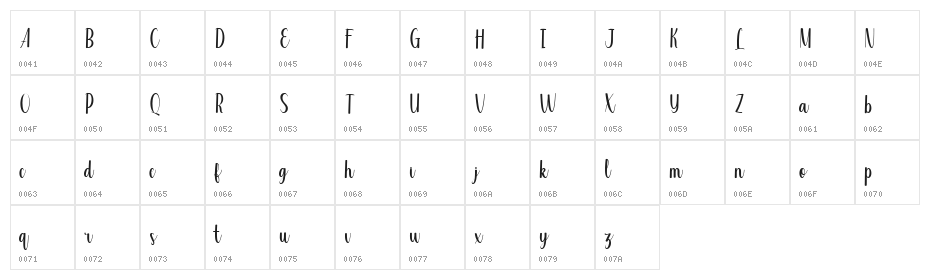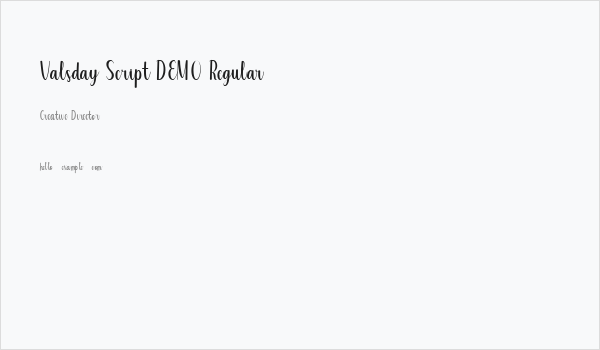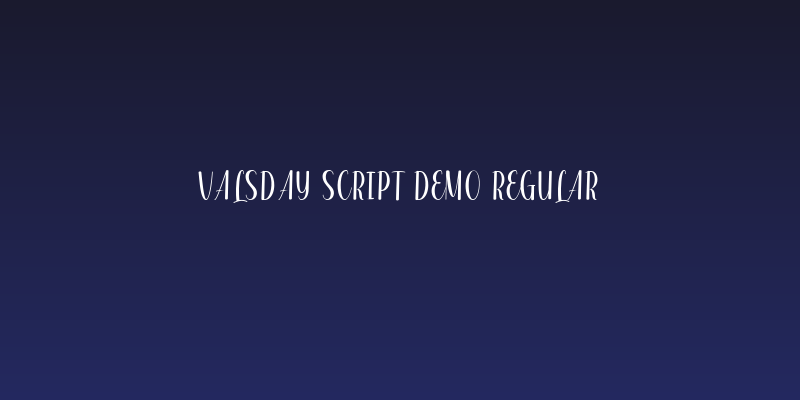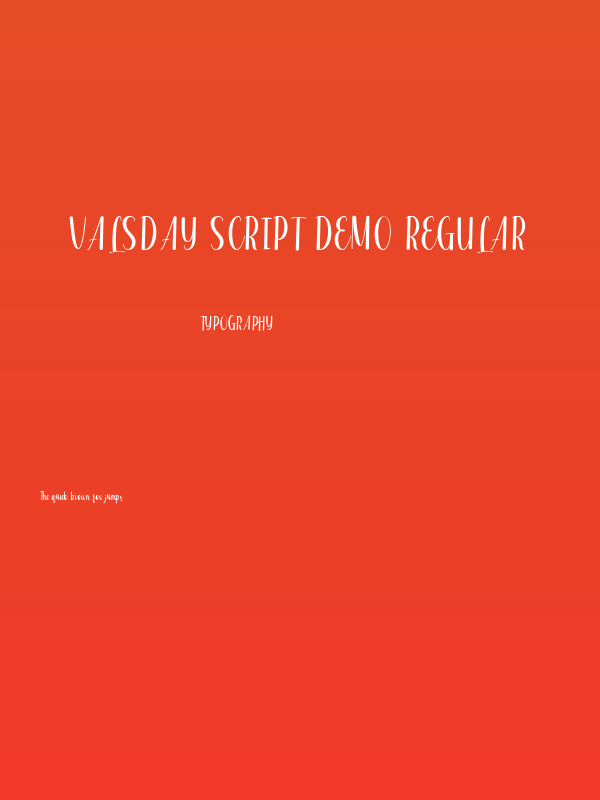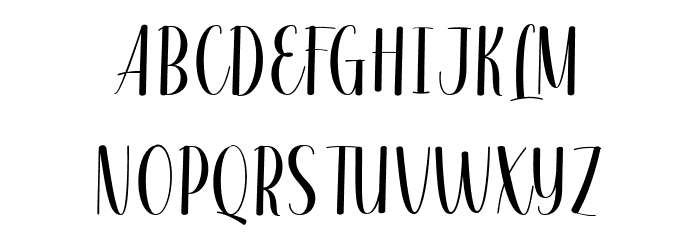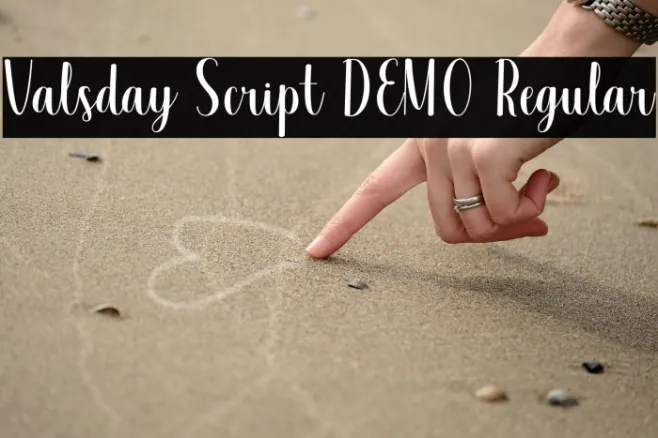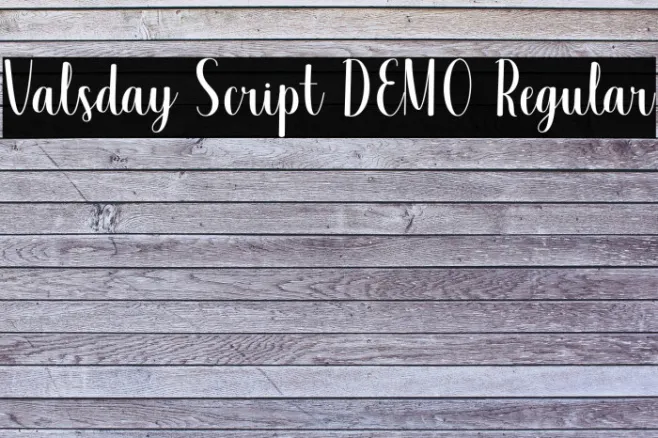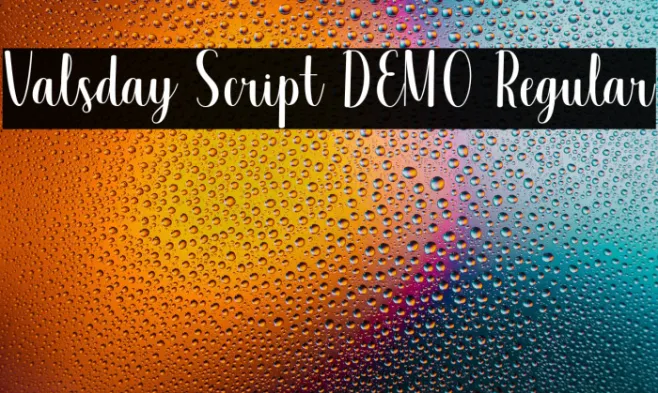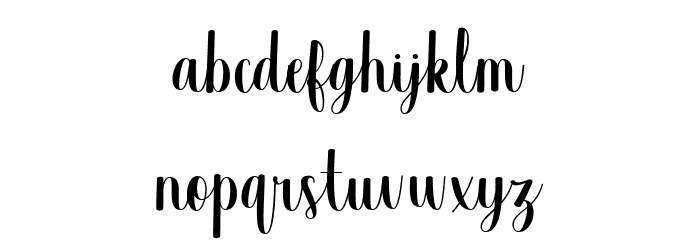
Valsday Script DEMO Regular Font
Valsday Script DEMO Regular Description
This font features a lively and elegant script style, characterized by its flowing and connected letterforms. The uppercase letters are tall and slender, with a slight slant that adds a dynamic feel. The lowercase letters are more rounded and fluid, maintaining a consistent rhythm throughout. The strokes vary in thickness, providing a moderate contrast that enhances readability while retaining a decorative flair. This font exudes a sense of sophistication and charm, making it suitable for a variety of creative applications.
| Proposed Projects | Ideal for wedding invitations, greeting cards, branding projects, and elegant packaging designs. |